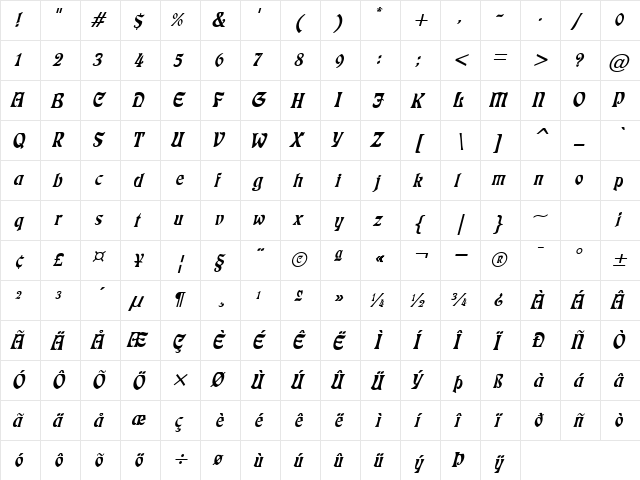
Lushlife Italic
Design Context for Lushlife Typeface
Lushlife takes a measured approach to typography — its balanced proportions and neutral character make it a reliable workhorse for both digital and print work. The slanted form adds forward momentum and visual energy.
Pro Tip: Try Lushlife for annotation and caption copy alongside an upright companion — the contrast in angle creates a dynamic but ordered typographic system.